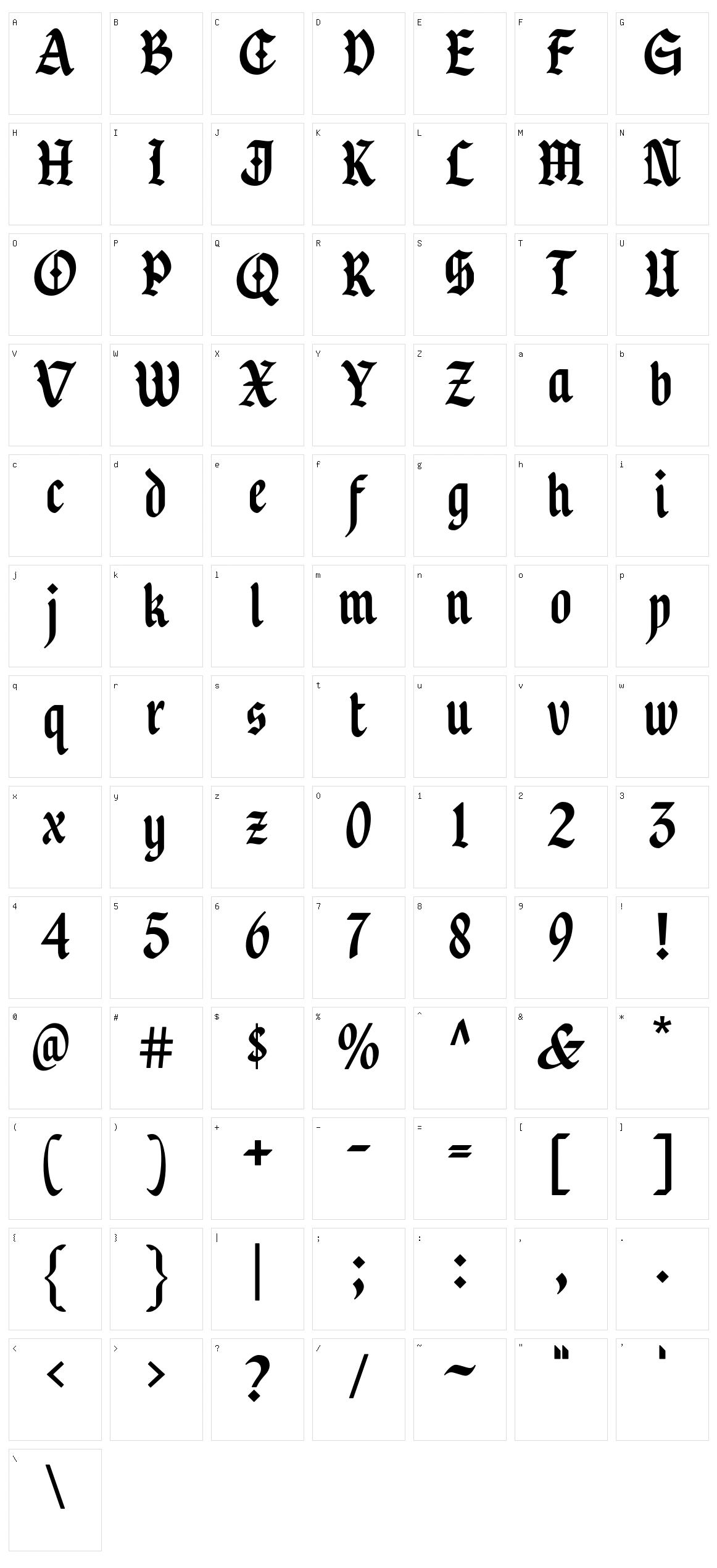
The free font Warsuck is carefully designed by Arterfak Project, showcasing a thoughtful balance of creativity and usability and belongs to the Gothic font family. When you download the ZIP file, it contains only 41.03 KB of font files, making it lightweight and quick to download. Please review the license details below to understand permitted usage and distribution rights. If license information is not available, we recommend using this font for personal projects only or contacting the author directly for commercial usage permissions.